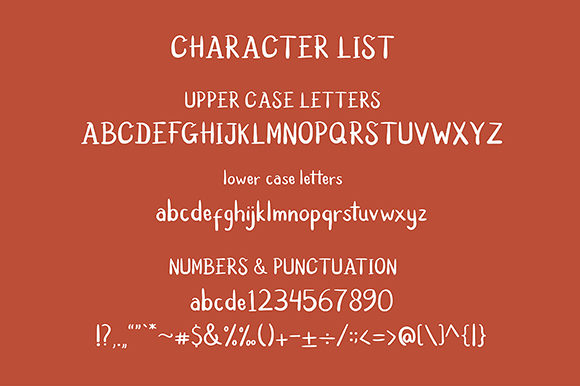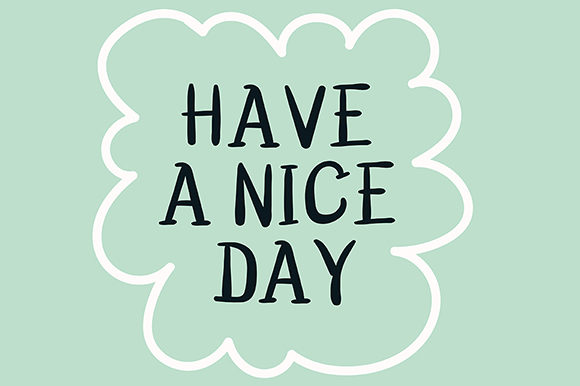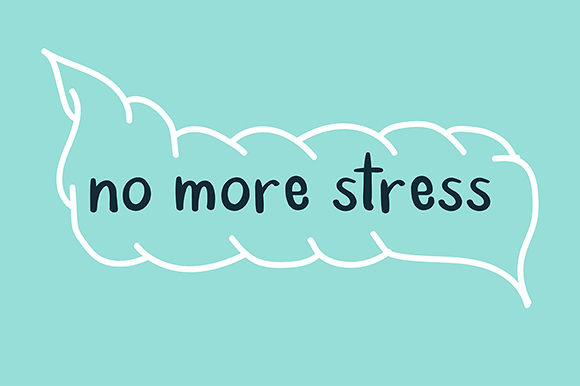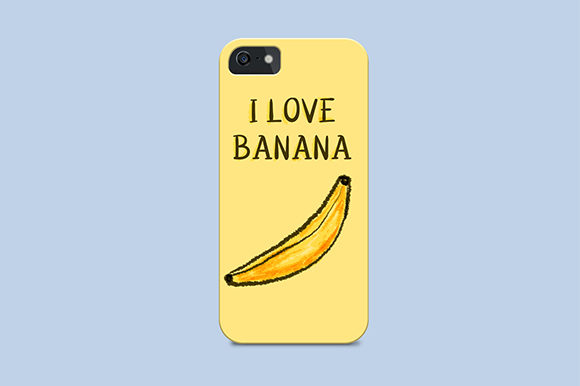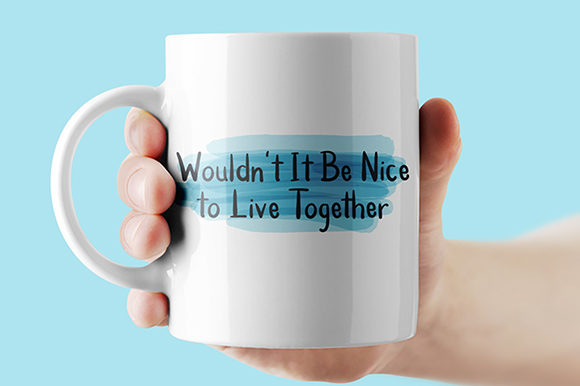
Introducing Chocolate Orchestra Font: The Sweetest Addition to Your Design Toolkit
Are you tired of using the same old fonts in your designs? Look no further! Chocolate Orchestra Font is here to shake things up and add a dash of whimsy to your creative projects. This adorable display font is sure to bring a smile to your face and make your designs stand out from the crowd.
The Perfect Blend of Cute and Quirky
Chocolate Orchestra Font is a unique and eye-catching display font that is perfect for designers and crafters looking to add a touch of personality to their work. With its playful and joyful vibe, this font is sure to capture the attention of your audience and leave a lasting impression.
Whether you’re working on a branding project, a marketing campaign, or a personal craft project, Chocolate Orchestra Font is the perfect choice. Its versatility and charm make it suitable for a wide range of applications, from titles and headings to packaging and signage.
What Makes Chocolate Orchestra Font So Special?
So, what sets Chocolate Orchestra Font apart from other fonts out there? Here are just a few reasons why this font is a must-have for designers and crafters:
- Unique and Quirky Design: Chocolate Orchestra Font features a one-of-a-kind design that is sure to grab attention and add a touch of whimsy to your designs.
- Highly Versatile: This font is perfect for a wide range of applications, from digital projects to print materials.
- Easily Readable: Despite its playful design, Chocolate Orchestra Font is highly readable, making it perfect for titles, headings, and short paragraphs of text.
How to Use Chocolate Orchestra Font in Your Designs
Now that you’ve fallen in love with Chocolate Orchestra Font, it’s time to start using it in your designs! Here are a few ideas to get you started:
- Titles and Headings: Use Chocolate Orchestra Font to create eye-catching titles and headings that grab attention and add a touch of personality to your designs.
- Branding and Packaging: Add a touch of whimsy to your branding and packaging with Chocolate Orchestra Font. Perfect for product labels, business cards, and more.
- Signage and Posters: Create eye-catching signage and posters with Chocolate Orchestra Font. Perfect for advertising, promotions, and events.
- Digital Projects: Use Chocolate Orchestra Font in your digital projects, such as social media graphics, blog posts, and website headers.
Why Designers and Crafters Love Chocolate Orchestra Font
Chocolate Orchestra Font has quickly become a favorite among designers and crafters, and it’s easy to see why. Here are just a few reasons why this font has captured the hearts of creatives:
- Easy to Use: Chocolate Orchestra Font is incredibly easy to use, even for those who are new to design.
- High-Quality Design: This font features a high-quality design that is sure to impress.
- Unique and Creative: Chocolate Orchestra Font is the perfect way to add a touch of personality and creativity to your designs.
| Font Name | Chocolate Orchestra Font |
| Author | cassavatype |
In conclusion, Chocolate Orchestra Font is a must-have for designers and crafters looking to add a touch of whimsy and personality to their creative projects. With its unique and quirky design, high versatility, and ease of use, this font is sure to become a staple in your design toolkit. So why wait? Download Chocolate Orchestra Font today and start creating designs that are as sweet as chocolate!